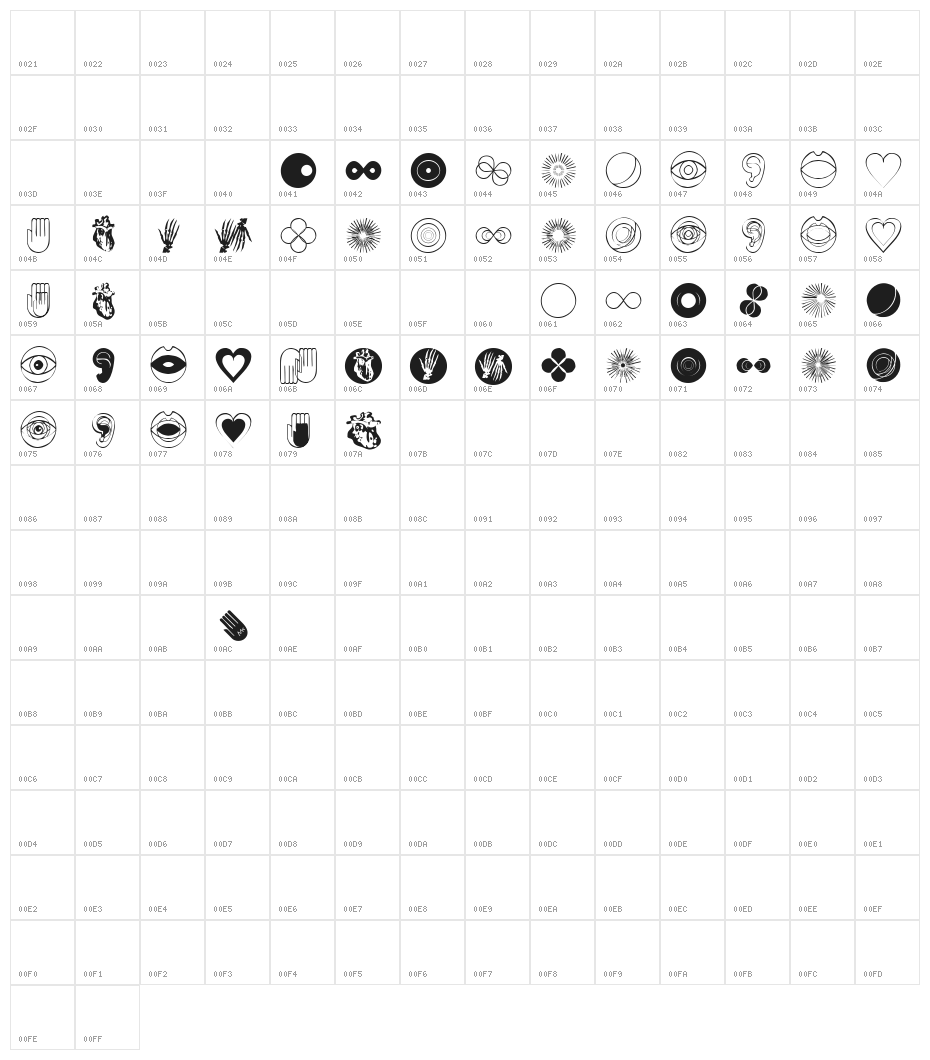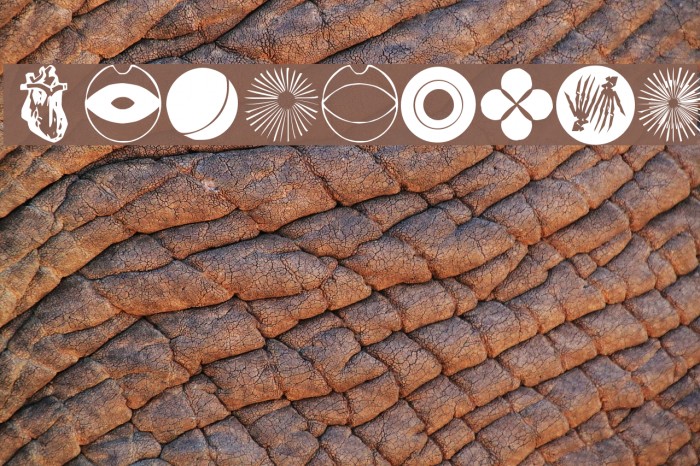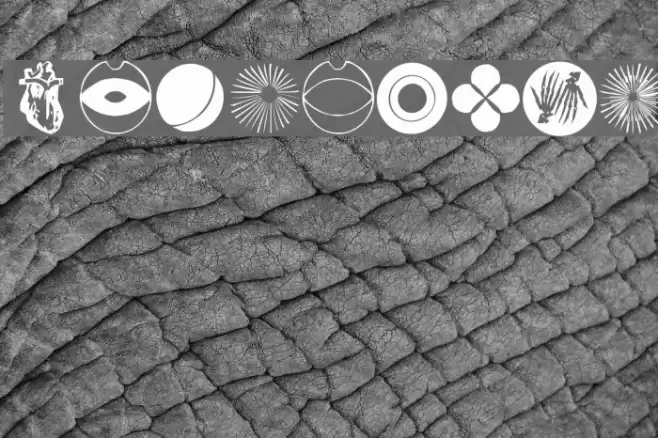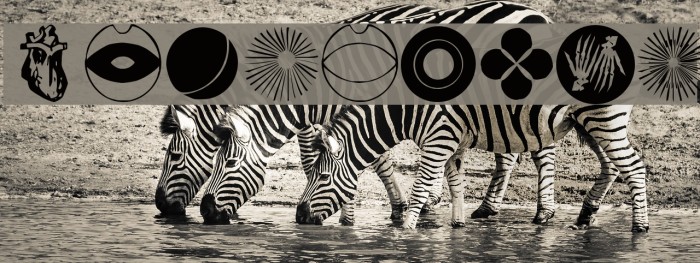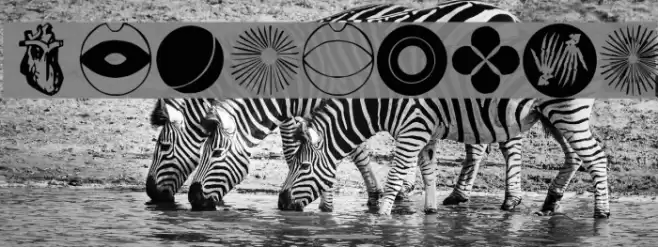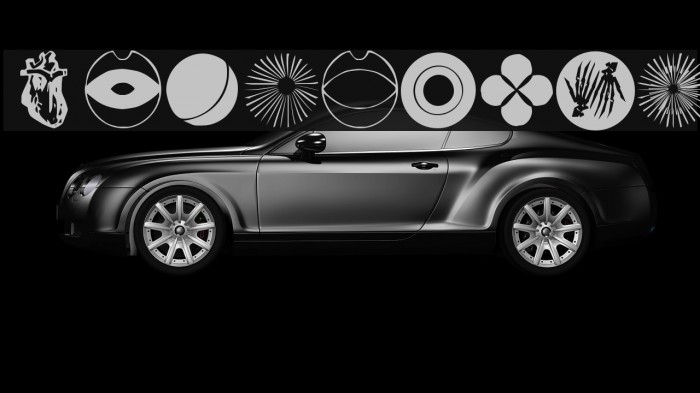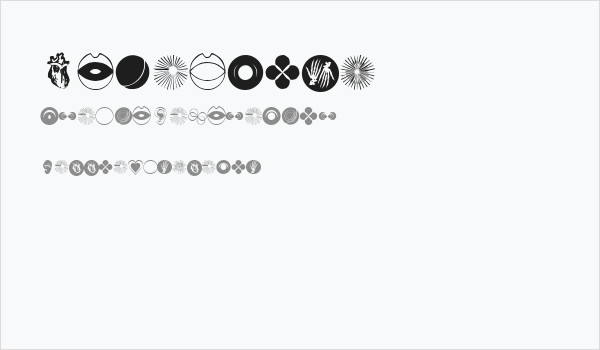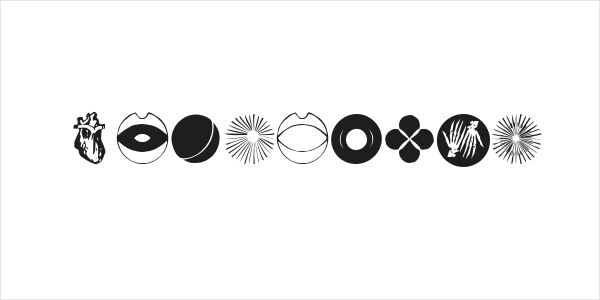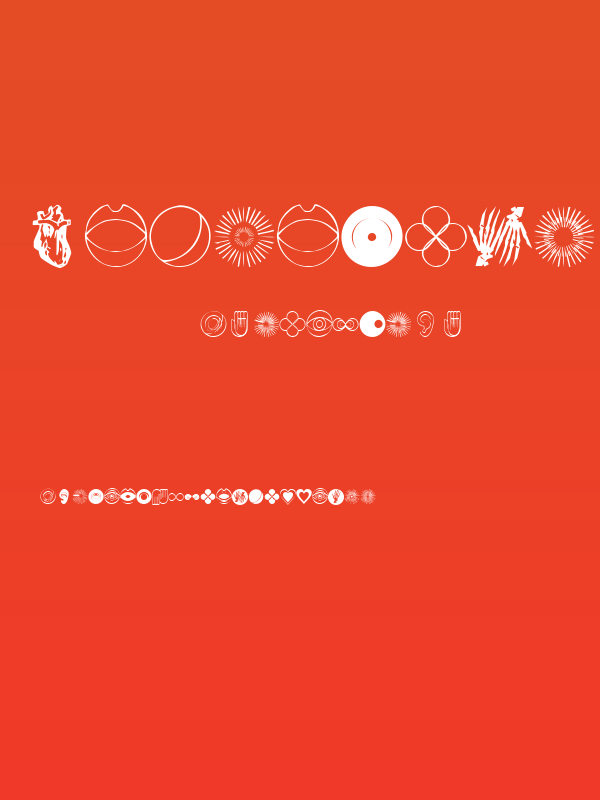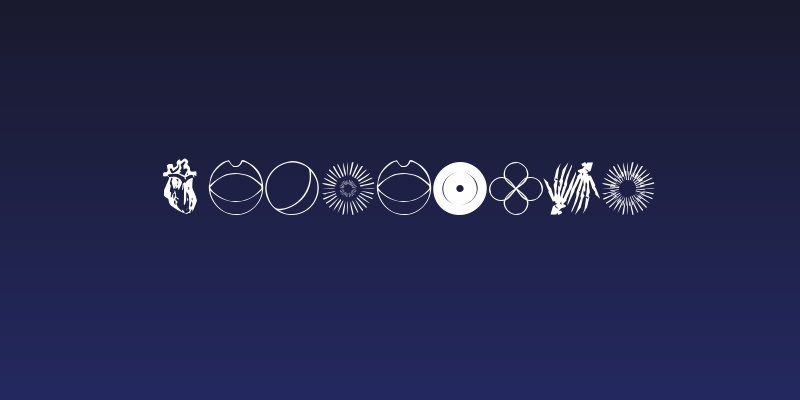
LifeIcons Font
LifeIcons Description
A decorative icon set featuring bold and outlined symbols such as circles, infinity signs, eyes, ears, lips, hearts, hands, and anatomical illustrations. The icons alternate between filled and outlined styles, offering strong visual contrast and a playful, modern aesthetic.
A modern, decorative icon font with bold and outlined life-inspired symbols from Uncategorized fonts.
- Proposed Projects: Branding, posters, editorial illustrations, infographics, packaging, digital interfaces.
- Overall Style: Modern, Decorative
- Use Case: Logos, Headlines, Posters, Icons, Illustrations